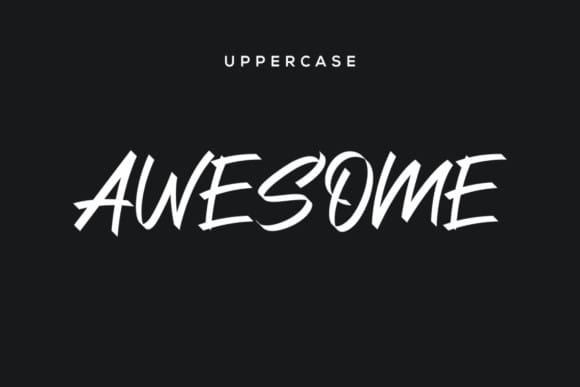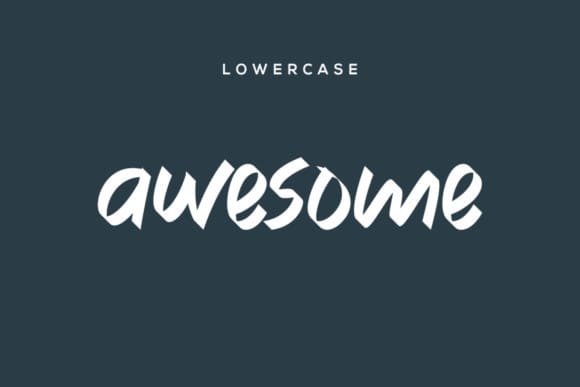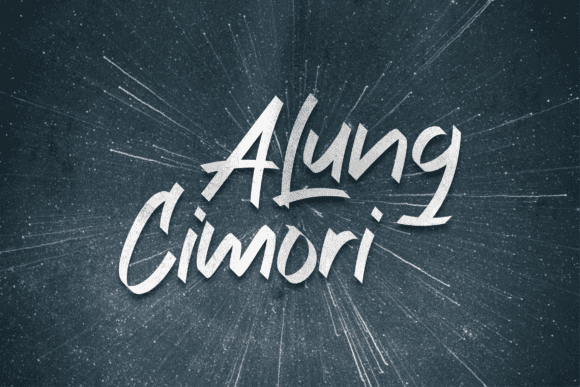
Alung Cimori Font
Alung Cimori Font is a bold and authentic display font. The font is suitable for any branding project like logos, t-shirt printing, sports, and more. It will look outstanding in a wide range of contexts.